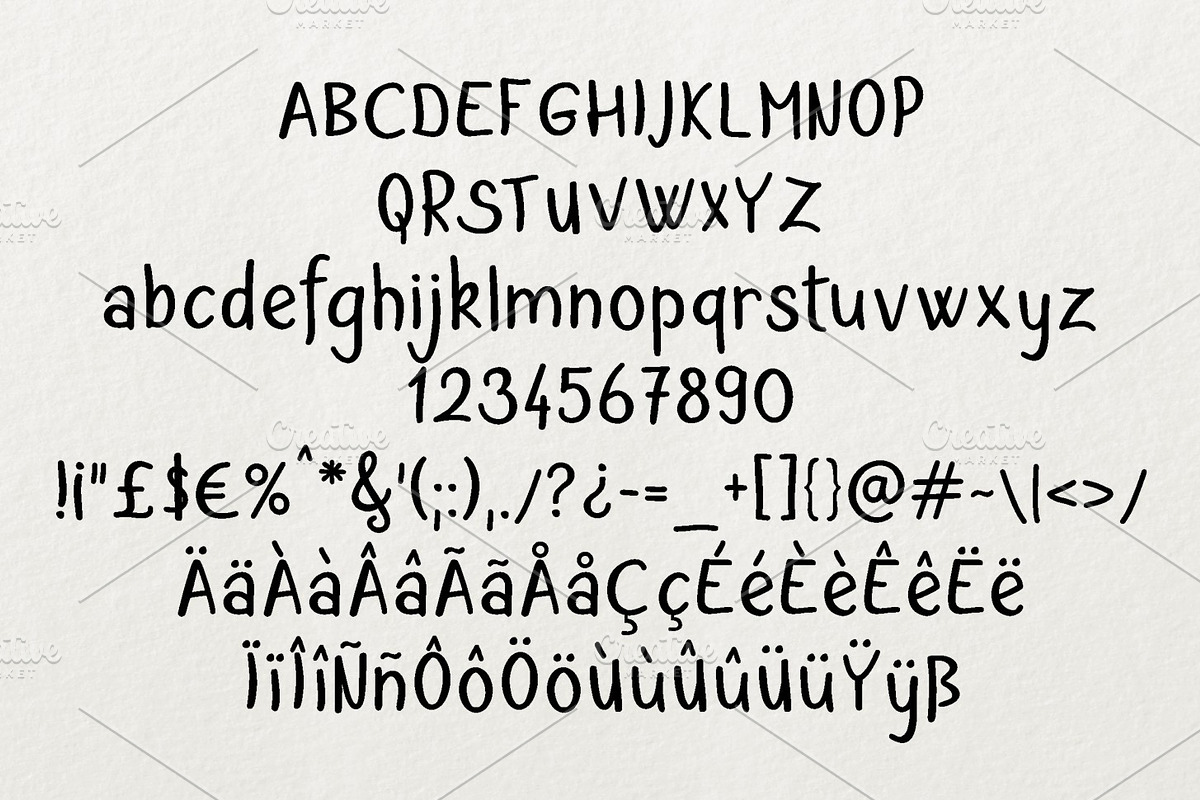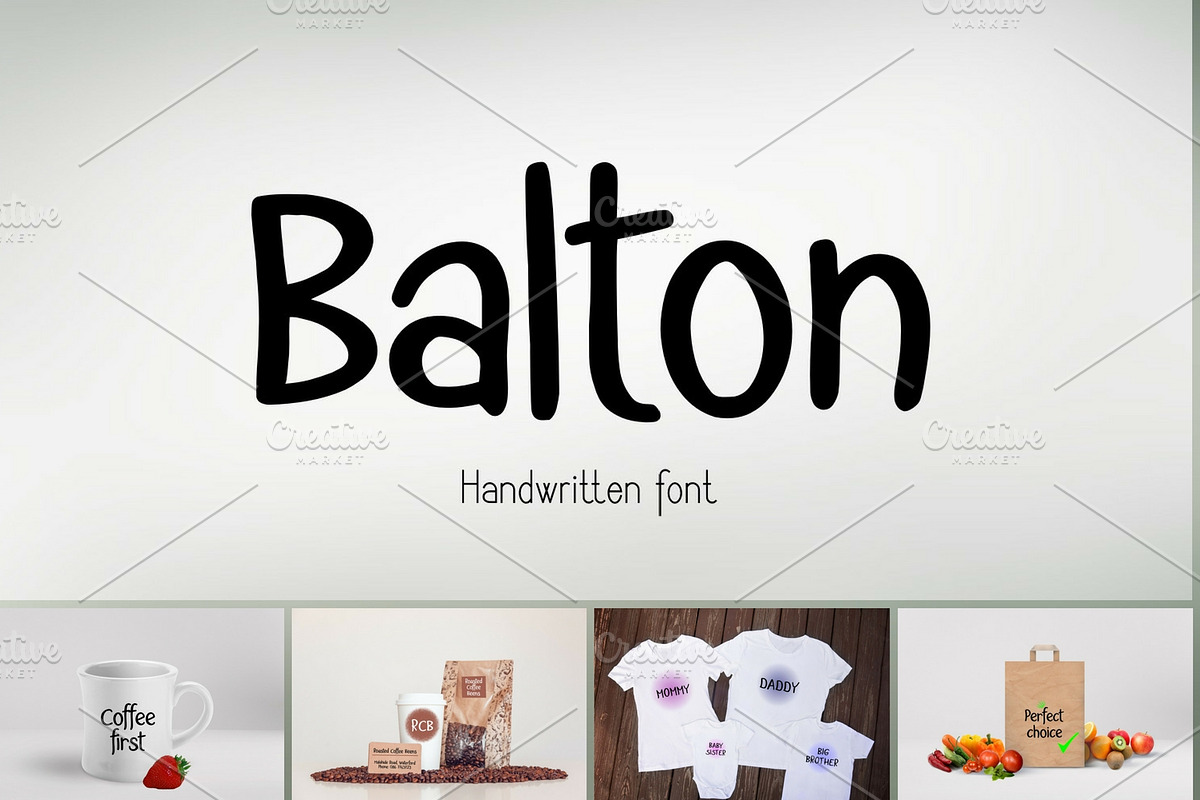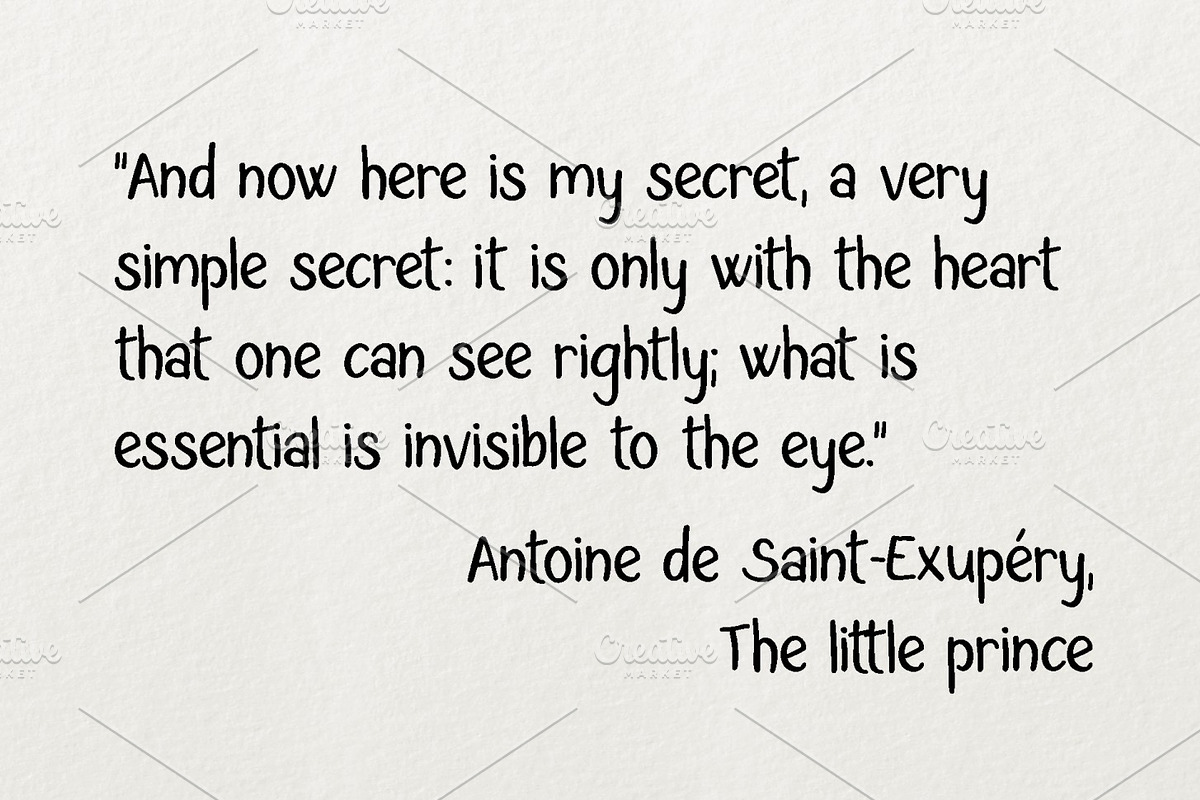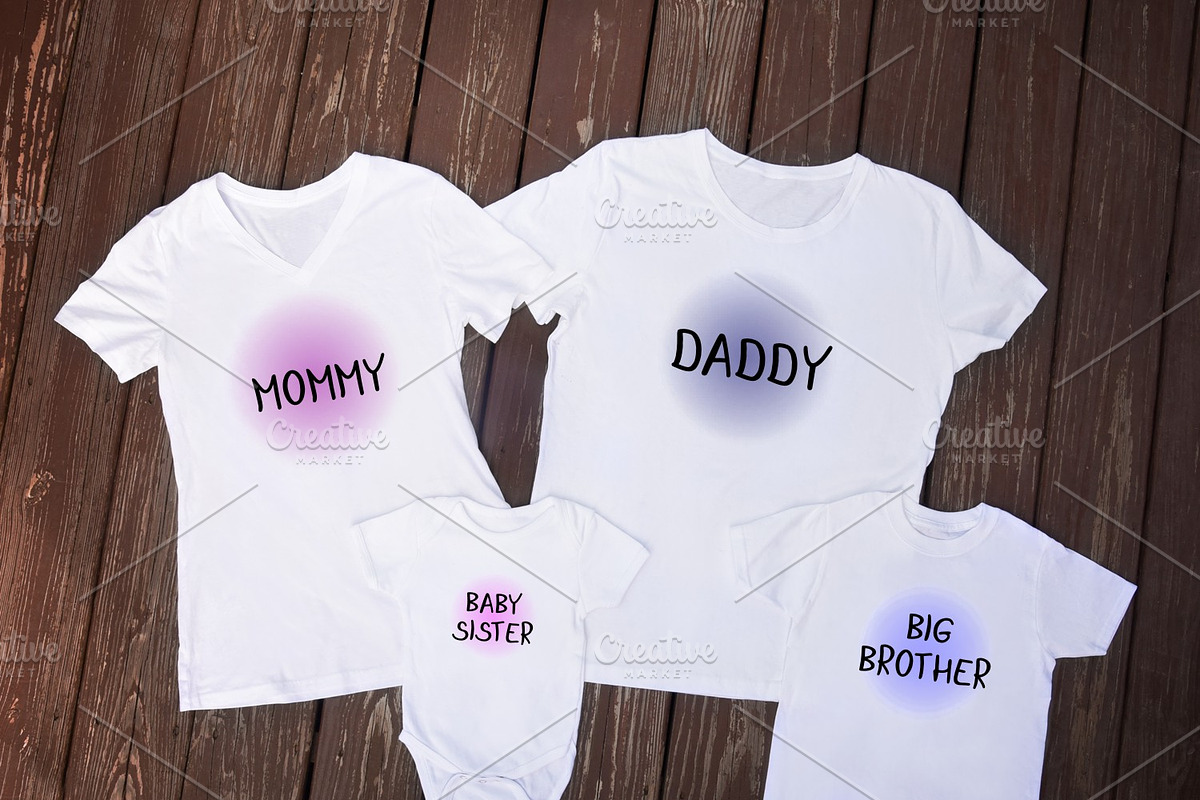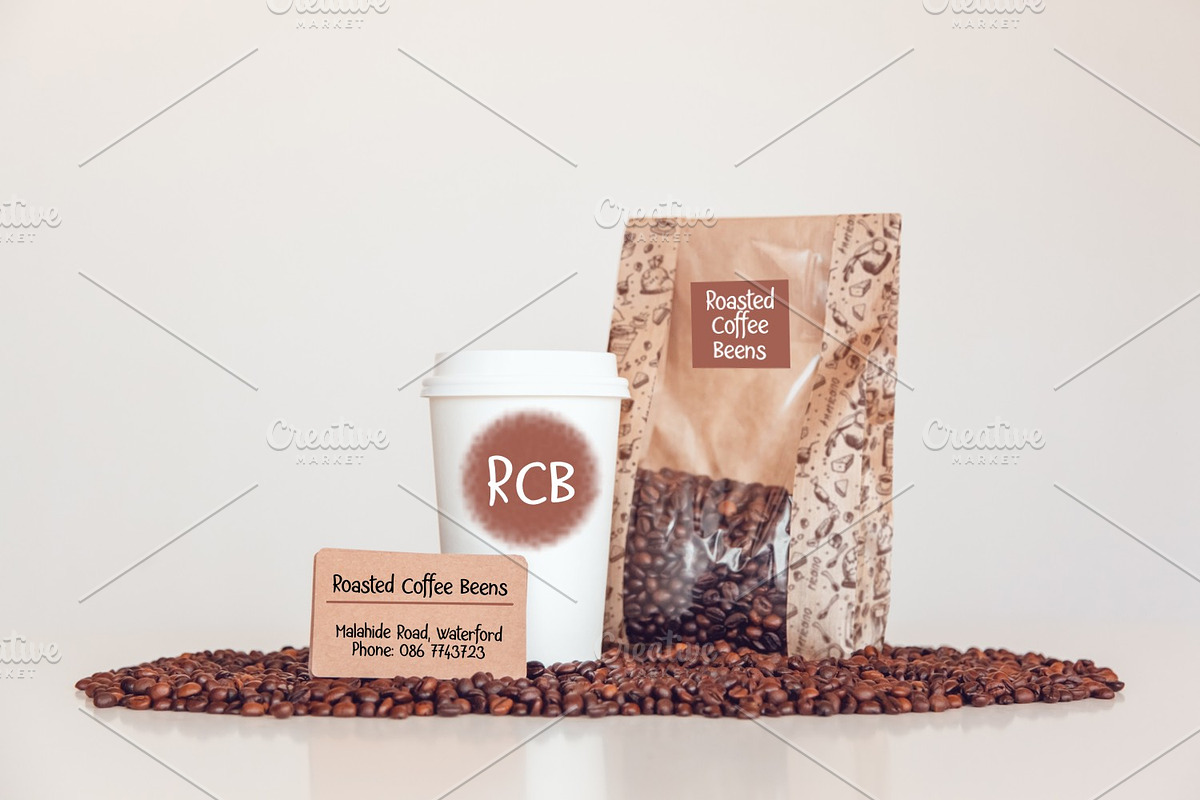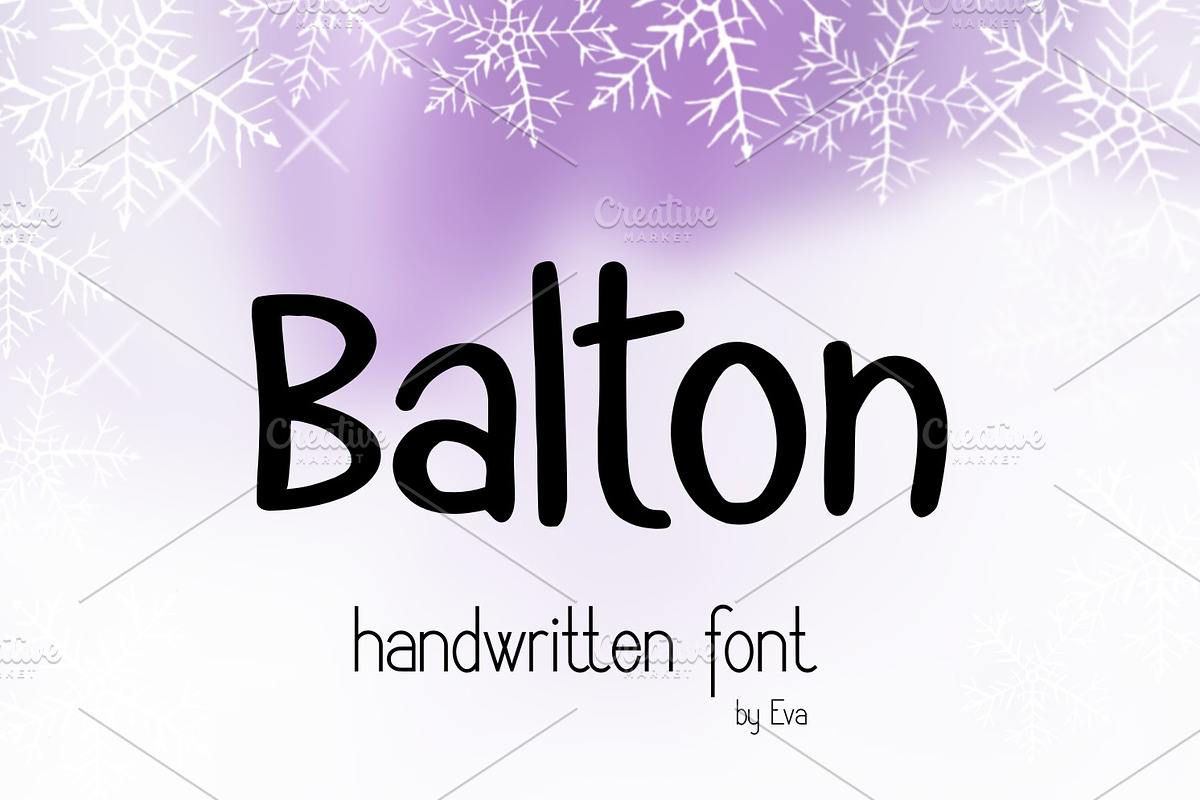
Balton
Introducing Balton, a rounded hand written typeface.
Upper cases, lower cases, numerals, punctuation, symbols, Europian characters.
Balton by Digital Typeface Studio fits naturally into Branding, posters, packaging, typography.